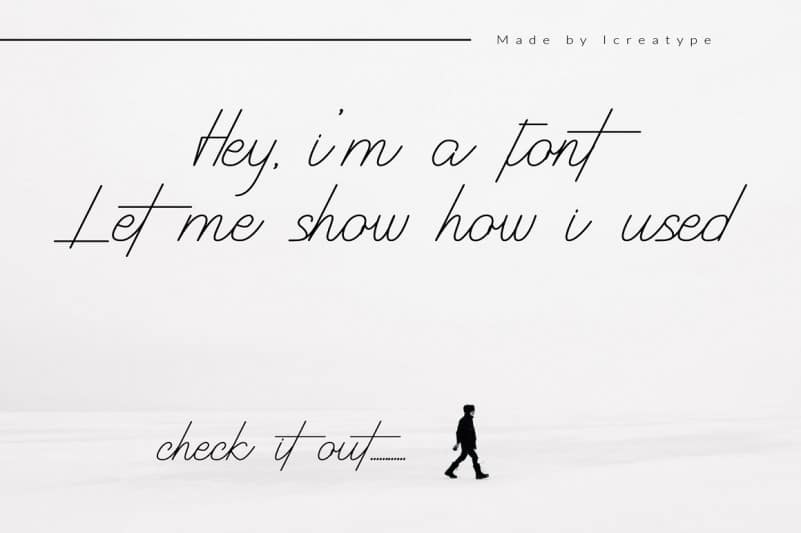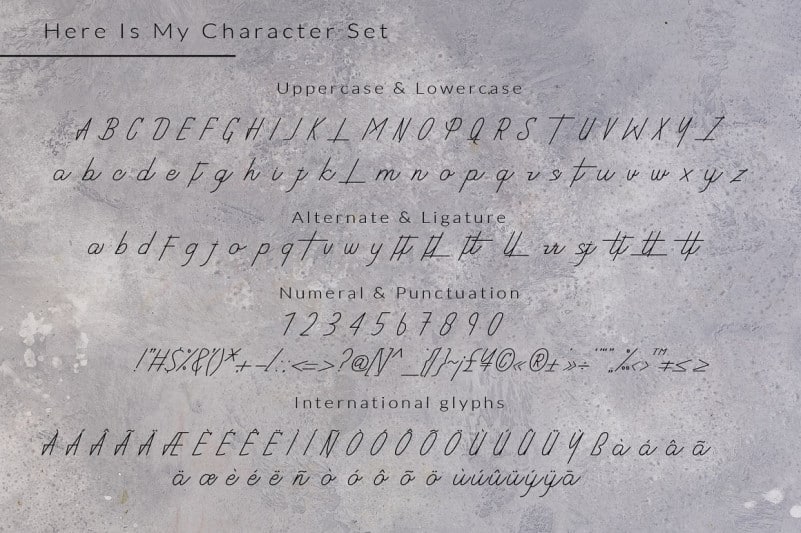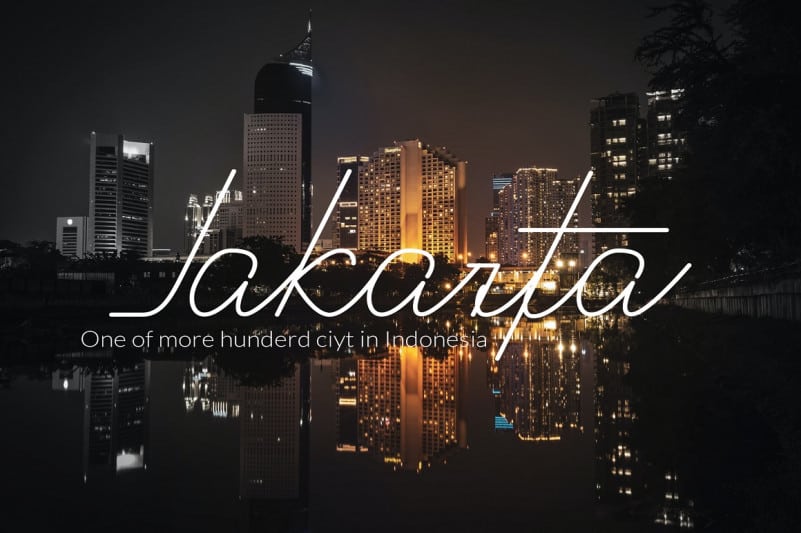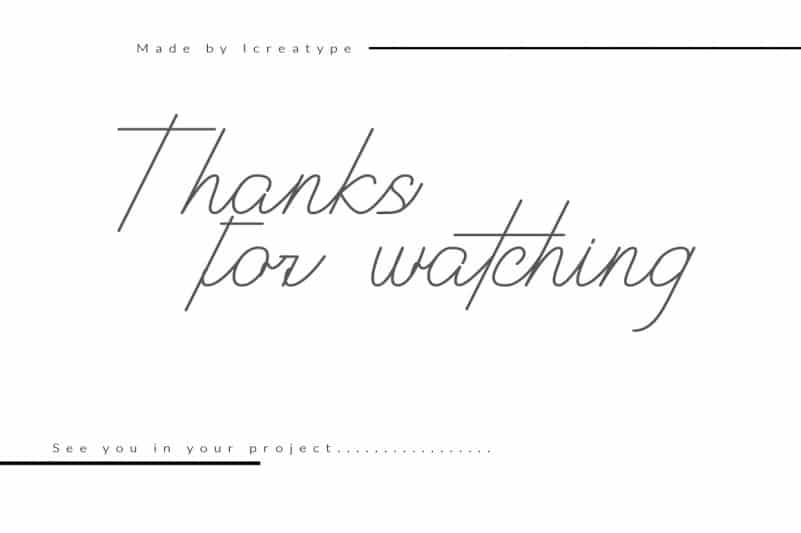
Ruottey Script Font
Ruottey Script Font is a new modern & fresh script with a handwritten and script style make this font looks elegant, natural, stylish and perfect for any awesome projects that need handwriting taste.
would perfect for photography, watermark, social media posts, advertisements, logos & branding, invitation, product designs, label, stationery, wedding designs, product packaging, special events or anything that need handwriting taste.